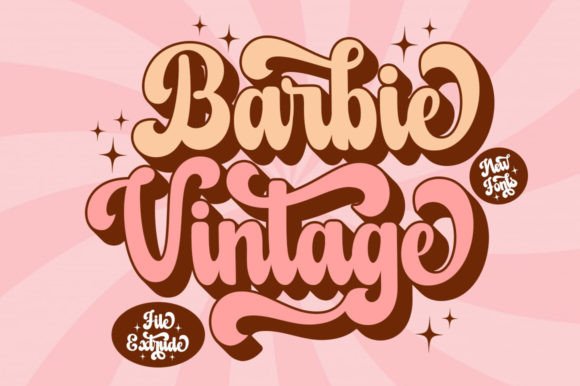
Introducing the Barbie Vintage Extrude Font, a captivating and nostalgic display font perfect for sign making! Created by Diorde Studio, this font is guaranteed to elevate your designs and leave a lasting impression.
With its playful and retro charm, Barbie Vintage Extrude brings a unique touch to any project. Whether you're designing a vintage-inspired logo, creating eye-catching signage, or adding a touch of nostalgia to your social media graphics, this font is the perfect choice.
Imagine the possibilities! This font has been meticulously crafted to enhance your creative ideas and take them to new heights. It's like stepping into a time machine and bringing the essence of the past into the present.
But that's not all - the Barbie Vintage Extrude Font is more than just a font. It's an experience. With its captivating design, this font is sure to evoke emotions and memories, making your message resonate with your audience on a deeper level.
The download includes the shadow (extrude) of the font as displayed, allowing you to create stunning 3D effects that will make your text pop. Want to take it a step further? Download Barbie Vintage regular for the complete package and use the standard font in front of the extrude.
Don't miss out on the opportunity to make your designs truly stand out. Whether you're a professional designer or a DIY enthusiast, the Barbie Vintage Extrude Font is a must-have in your font collection. It's time to unleash your creativity and transport your audience to a world of nostalgia.